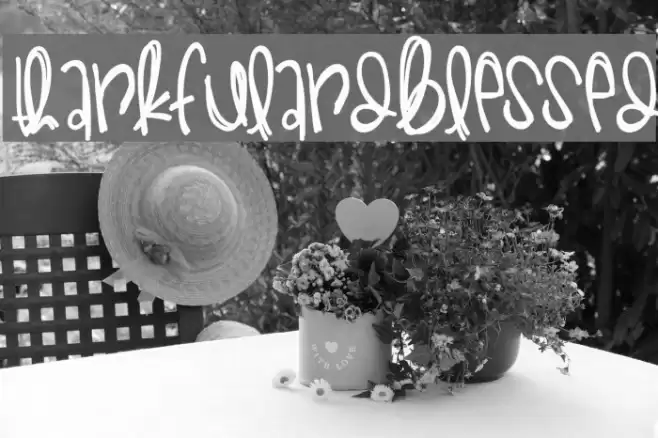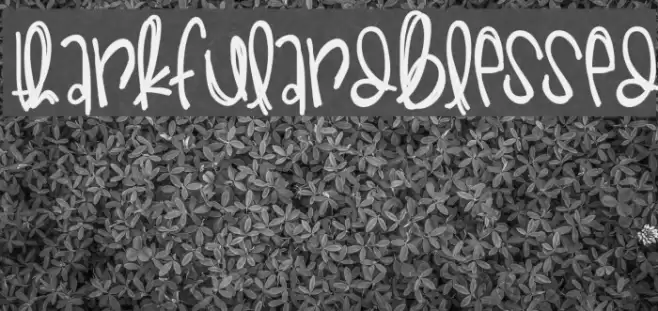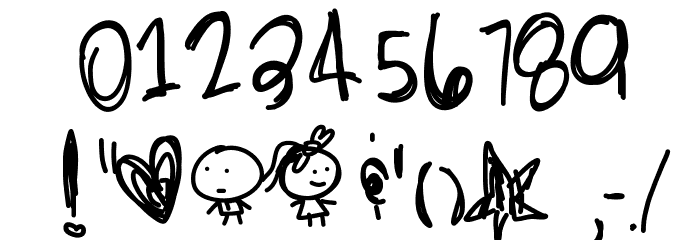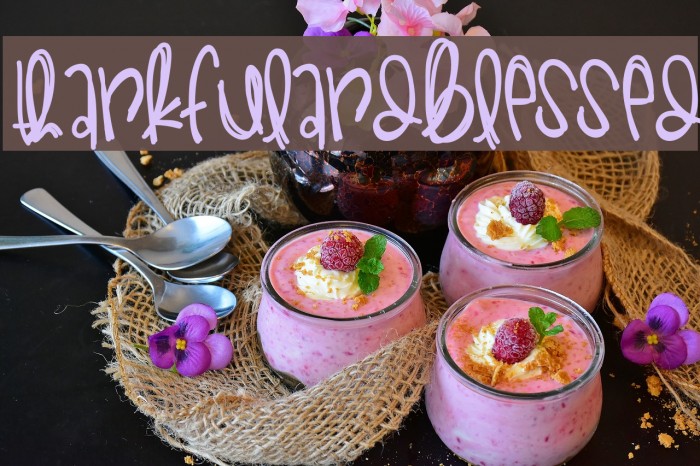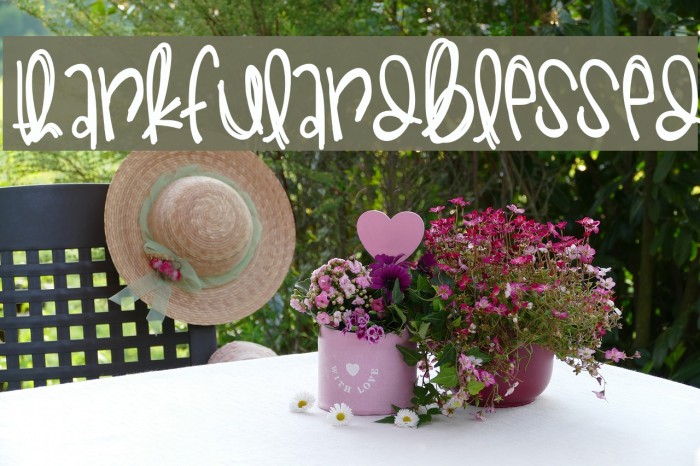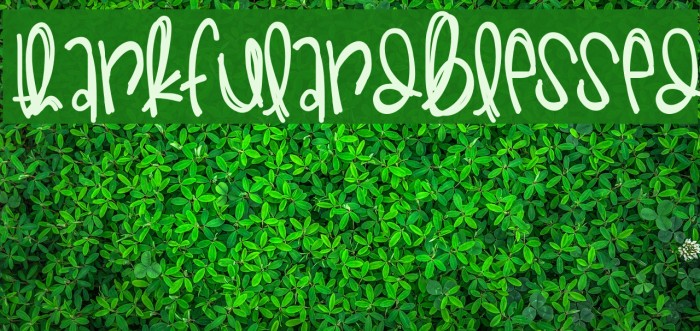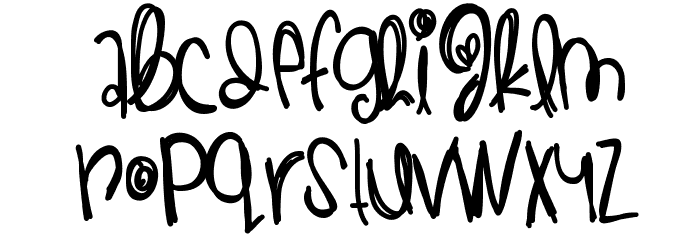
ThankfulAndBlessed Font
ThankfulAndBlessed Description
This playful and whimsical font features a handwritten style with a lively and energetic appearance. The letters are characterized by their irregular shapes and varying sizes, giving a sense of spontaneity and creativity. The strokes are bold and confident, with a slight slant that adds to the dynamic feel. The font includes both uppercase and lowercase letters, numbers, and a selection of special characters, all maintaining the same quirky and informal aesthetic. The overall impression is one of friendliness and approachability, making it suitable for projects that aim to convey warmth and personal touch.
A playful handwritten font with bold, irregular strokes and a lively, whimsical style from Uncategorized fonts.
- Proposed Projects: Ideal for greeting cards, children's books, playful branding, and personal projects that require a touch of whimsy.
- Overall Style: Playful, Whimsical
- Use Case: Headlines, Informal Invitations, Creative Projects